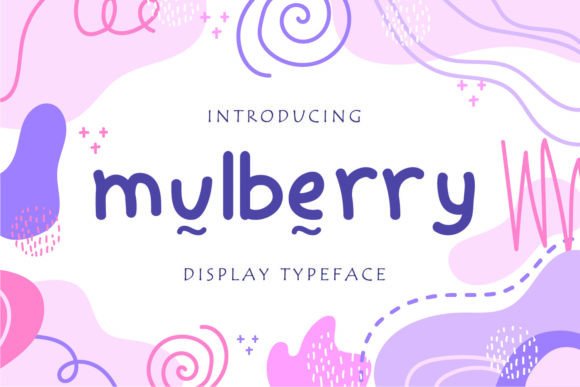
Mullberry: A Cute and Friendly Display Font for Creative Projects
When it comes to choosing a font that adds a touch of charm and personality to your designs, Mullberry stands out as a top choice. This display font is not only visually appealing but also incredibly versatile, making it ideal for a wide range of creative projects. Whether you're working on a children's book, a cartoon illustration, or a playful game design, Mullberry can bring the perfect level of cuteness and friendliness to your work.
What Makes Mullberry Unique?
Mullberry is designed with a soft, rounded style that gives it a warm and approachable feel. Its letterforms are slightly exaggerated, which helps convey a sense of playfulness and whimsy. This makes it especially effective for projects aimed at younger audiences or those looking to evoke a nostalgic, handcrafted vibe.
One of the key features of Mullberry is its readability. Despite its decorative appearance, the font maintains clarity even at smaller sizes. This means you can use it in both large headlines and more detailed text without sacrificing legibility. The balance between aesthetics and functionality is what sets Mullberry apart from many other display fonts on the market.
Applications for Mullberry in Different Industries
The versatility of Mullberry makes it a valuable asset across various industries. In the world of children's media, for example, this font is often used in storybooks, educational materials, and animated content. Its friendly look helps create an engaging atmosphere that appeals to young readers while keeping the text easy to follow.
In the gaming industry, Mullberry can be used to design UI elements, character names, or in-game messages. Its playful style fits well with casual or family-friendly games, adding a layer of charm that enhances the overall user experience. Game developers often look for fonts that can communicate the tone of their project without being too serious, and Mullberry does just that.
For designers working on branding or marketing campaigns, Mullberry offers a way to inject personality into logos, social media posts, or promotional materials. It’s particularly effective for brands that want to appear approachable and fun, such as those in the food, fashion, or lifestyle sectors. Using Mullberry in these contexts can help establish a unique visual identity that resonates with the target audience.
How to Use Mullberry Effectively
When incorporating Mullberry into your design work, it’s important to consider how it will interact with other elements. Since it’s a display font, it works best when used in limited quantities—such as headings, titles, or short phrases. Overusing it can make the design feel cluttered or overwhelming.
Pairing Mullberry with complementary fonts can also enhance its impact. For instance, combining it with a clean, sans-serif font like Open Sans or Lato can create a balanced contrast that draws attention to the key elements of your design. This approach is especially useful in web design, where readability and visual hierarchy are crucial.
Another practical tip is to experiment with different weights and styles. While the standard version of Mullberry is great for most applications, some versions may include variations such as bold, italic, or outlined options. These can be used to add depth and dimension to your compositions, making them more dynamic and engaging.
Why Choose Mullberry Over Other Fonts?
There are countless display fonts available, each with its own set of characteristics. However, Mullberry has several advantages that make it a standout option. One of the main reasons is its consistent quality across different platforms and devices. Unlike some fonts that may look distorted or unclear on certain screens, Mullberry maintains its integrity and charm no matter where it’s displayed.
Additionally, Mullberry is often praised for its ease of use. It’s compatible with most design software, including Adobe Photoshop, Illustrator, and Figma, making it accessible to a wide range of professionals. This compatibility ensures that you can integrate it seamlessly into your workflow without encountering technical issues.
Scenarios Where Mullberry Shines
Imagine you’re designing a children’s app that teaches basic math concepts through interactive games. Using Mullberry for the title screen and instructional text would instantly create a welcoming and inviting environment. The font’s friendly appearance helps reduce the intimidation factor for young users, making the learning process more enjoyable.
Or consider a small business owner who wants to launch a new line of handmade greeting cards. By using Mullberry for the card titles and slogans, they can create a cohesive and eye-catching collection that feels authentic and personal. This type of design choice can make a significant difference in how customers perceive the brand and its offerings.
Even in more traditional settings, such as print advertising or packaging design, Mullberry can add a unique flair. A product label featuring this font might stand out on a shelf, drawing attention through its distinctive and memorable style. This can be especially beneficial for niche markets or specialty products that rely on strong visual identities to differentiate themselves from competitors.